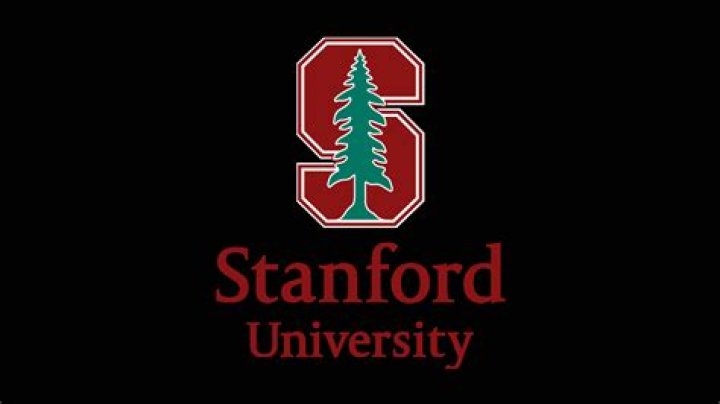
stanford university font, check these out | What is the logo of Stanford?
Source Sans Pro is Stanford’s primary sans serif font and should be used in print, web, and social media communications. Though Source Sans Pro is used in the GSE signature with the Stanford wordmark, treat the signature itself as artwork, as it cannot be accurately reproduced by using a font.
What is the logo of Stanford?
The block S with tree is one of the most recognized logos of Stanford University. The tree is based on the rendition of El Palo Alto, the tree seen on the Stanford seal. The symbol was updated in 2014. For the Stanford block S with tree, the preferred presentation is in two colors: Cardinal red and Palo Alto green.
Why is the Stanford symbol a tree?
The “Tree,” which is a member of the Stanford Band, is representative of El Palo Alto, the Redwood tree which is the logo of the city of Palo Alto. Since Stanford University and Palo Alto are almost inextricably intertwined in interests and location, it is a natural outgrowth of this relationship.